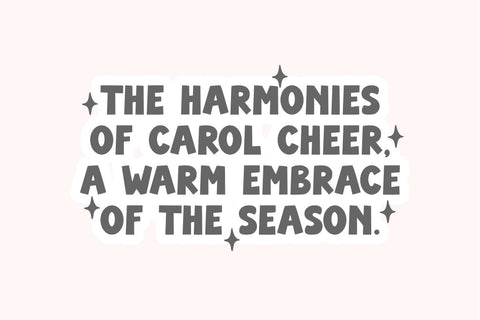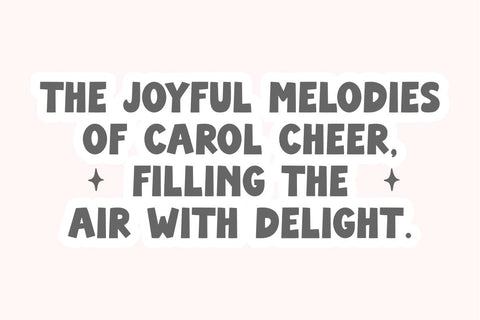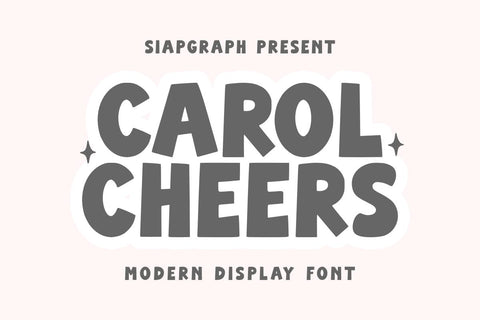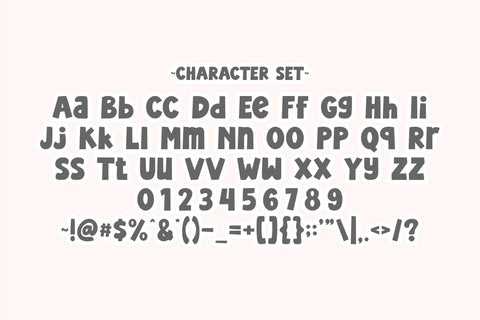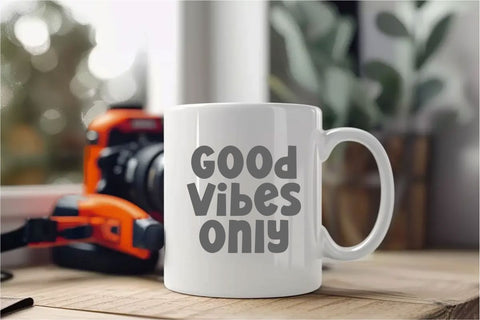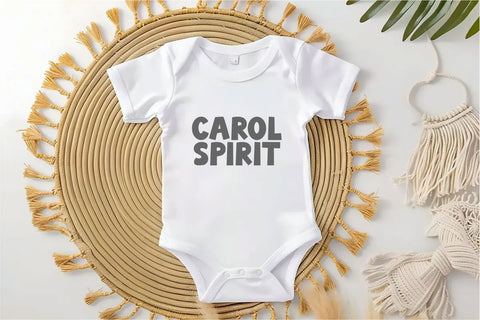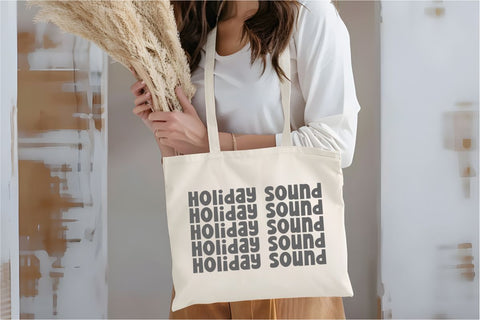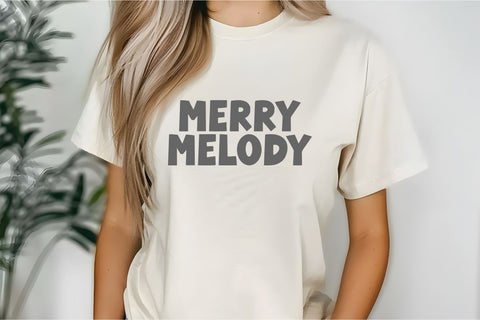
Carol Cheers - Bold Quirky
Carol Cheers is a bold and playful modern display font that brings a cheerful and energetic vibe to your designs. With its slightly irregular, chunky letterforms and fun aesthetic, this font is perfect for headlines, branding, posters, children’s books, packaging, social media graphics, and more. Carol Cheers adds a touch of personality and excitement to any project, making it a great choice for designers looking for a standout font.